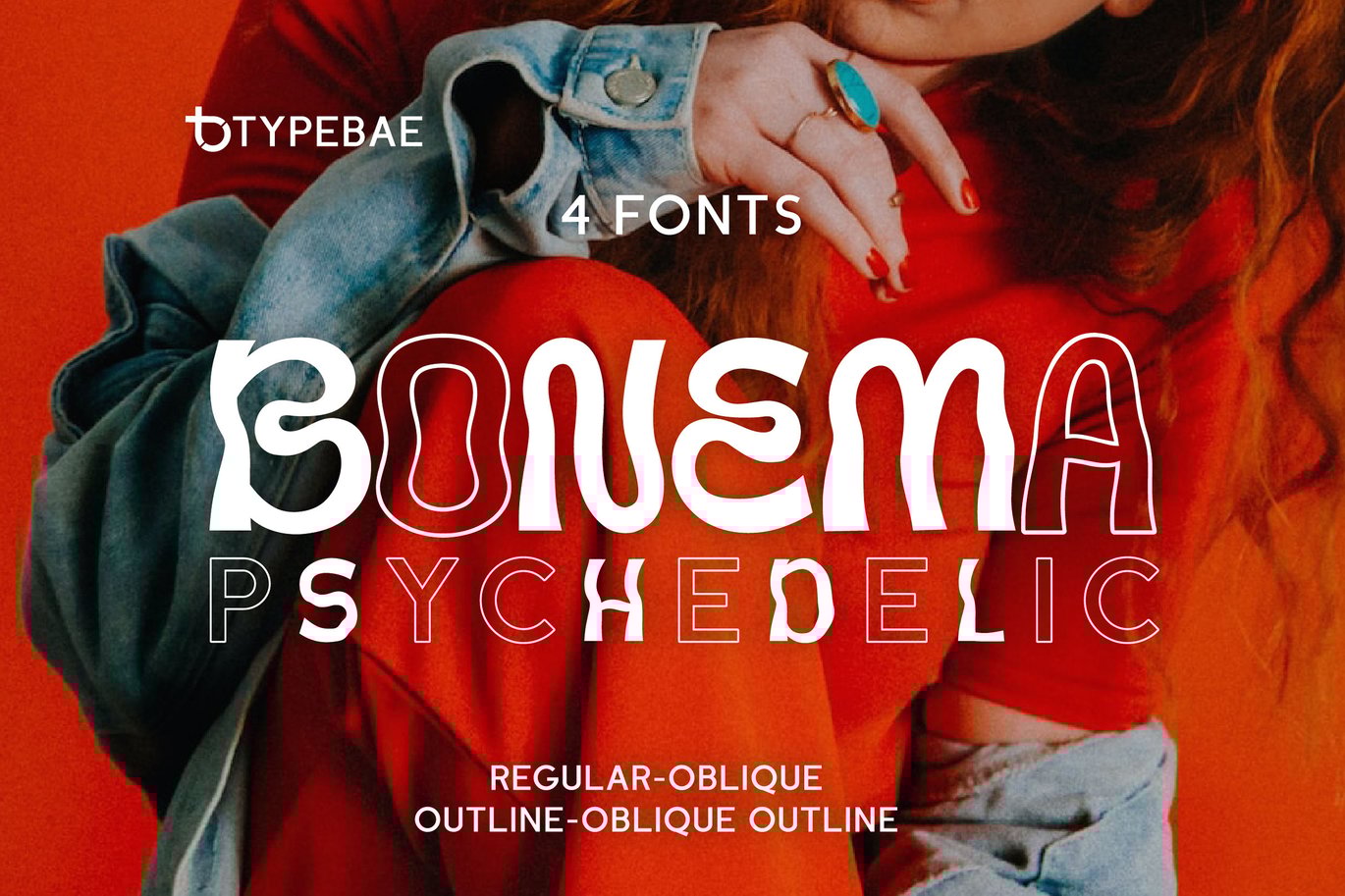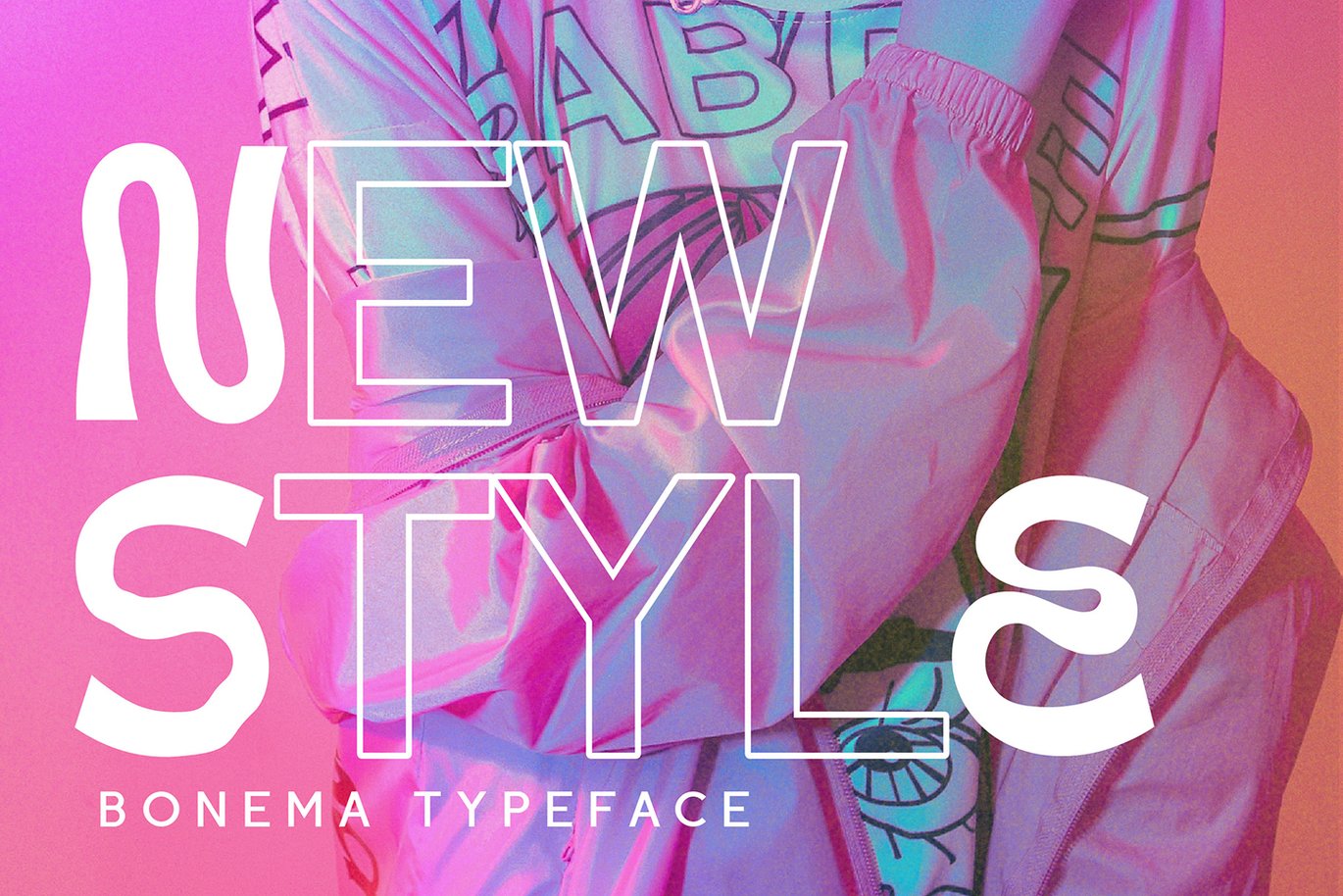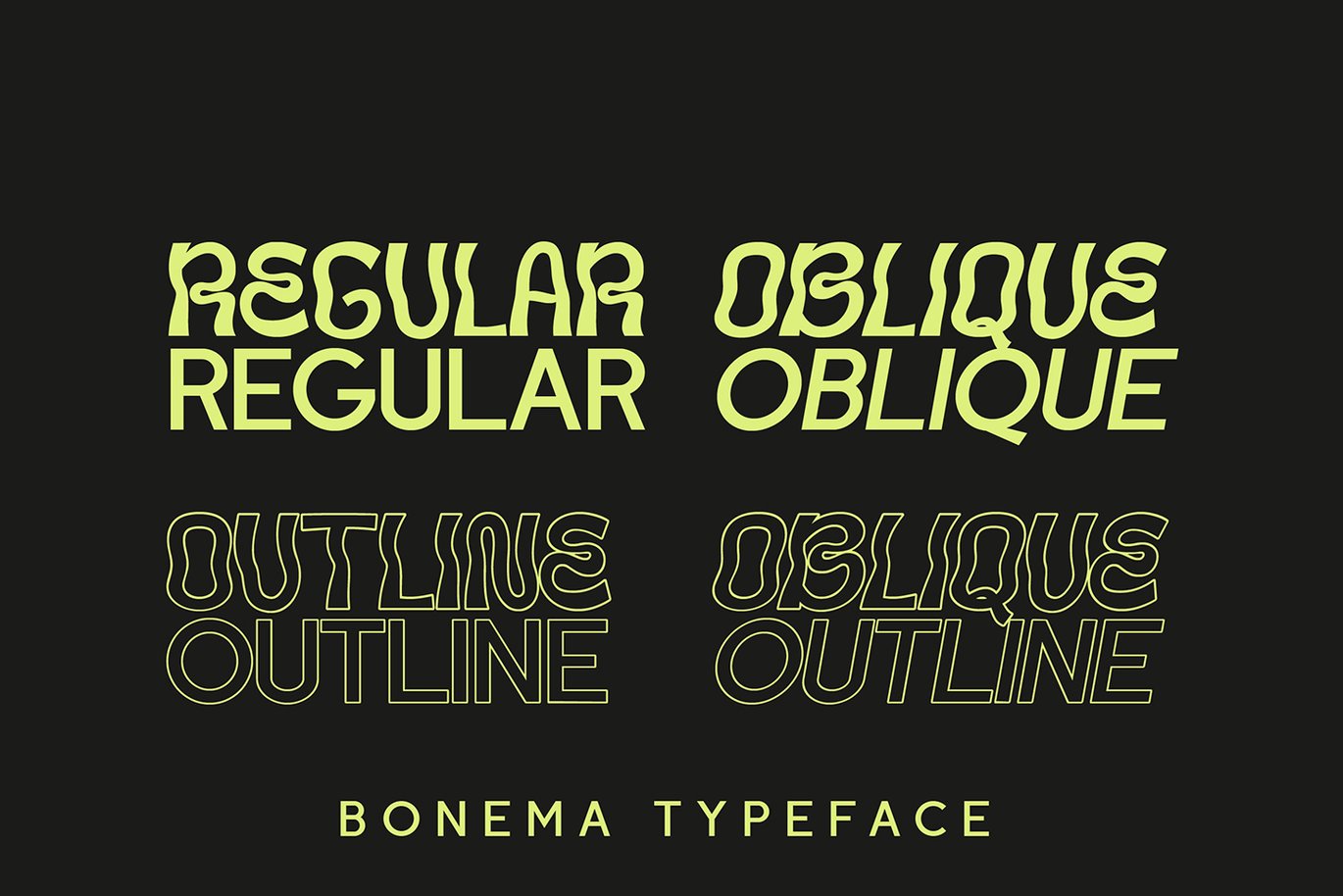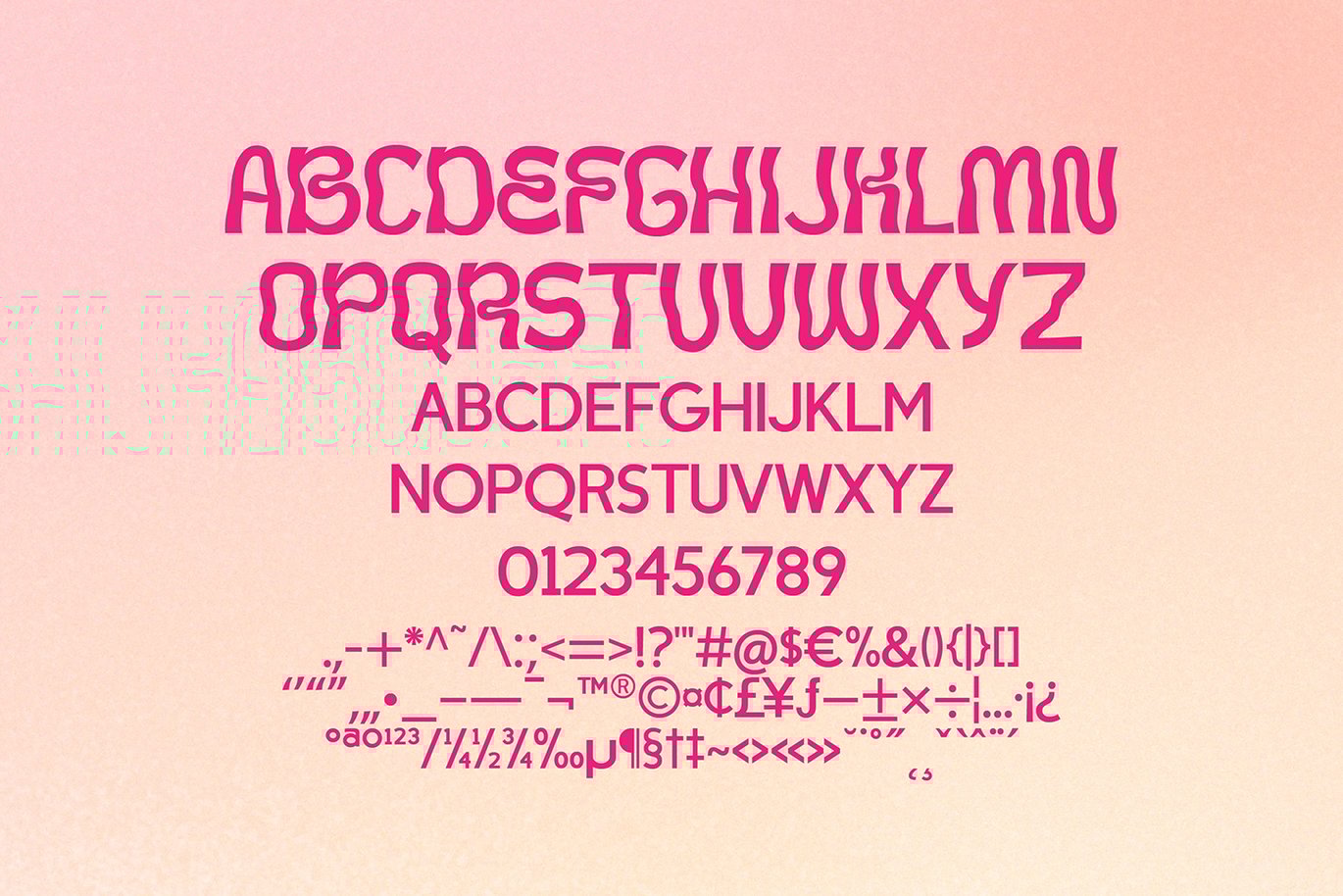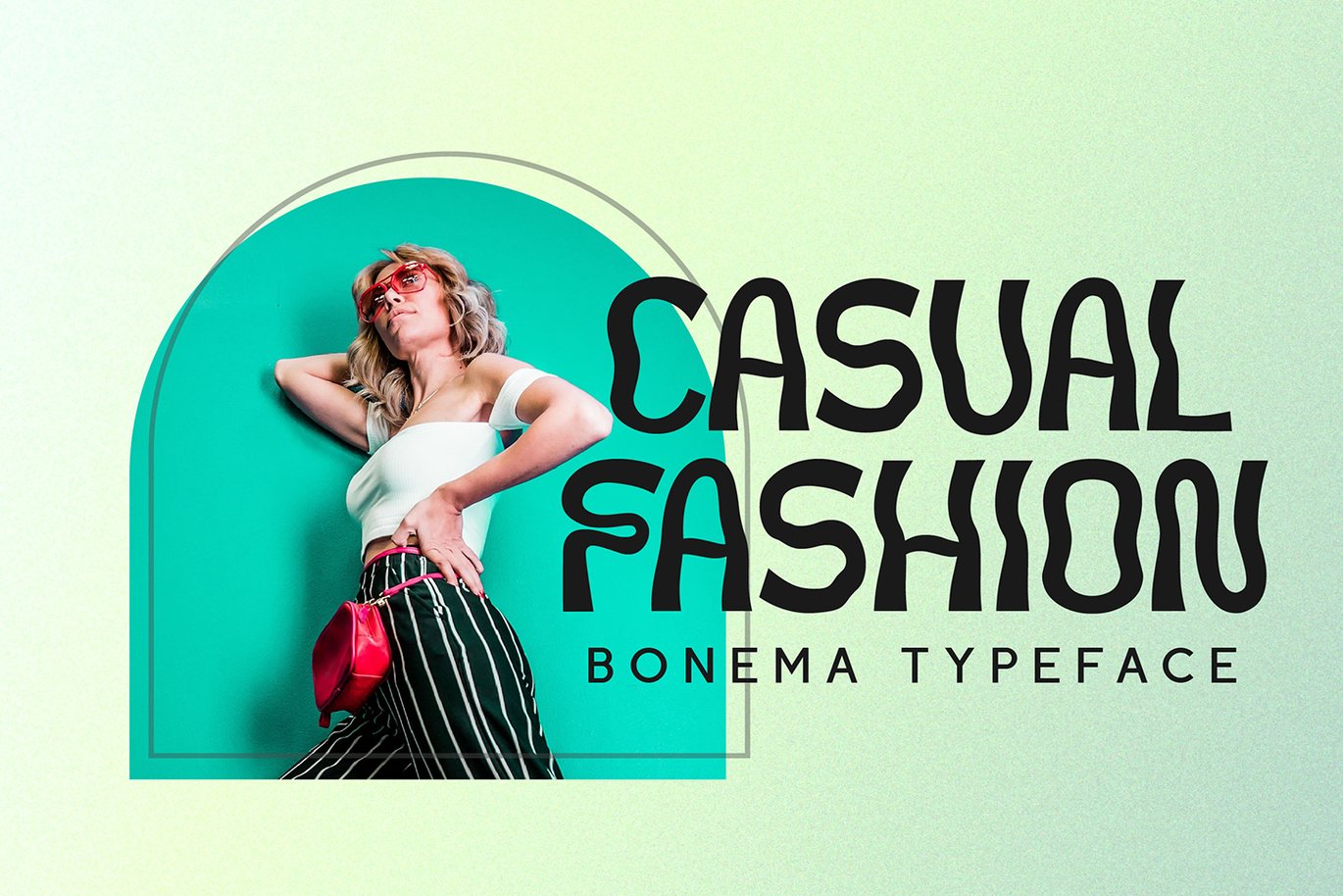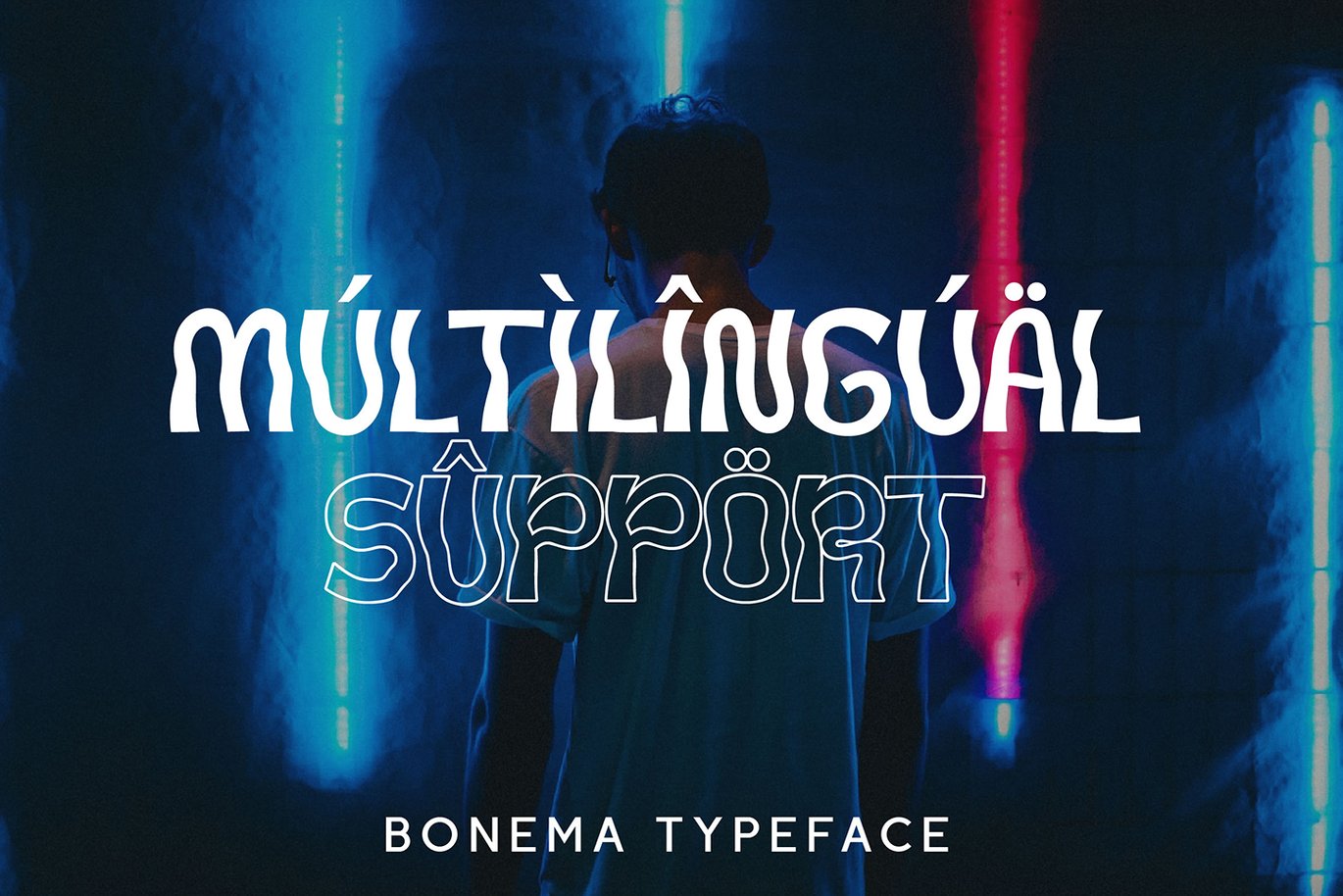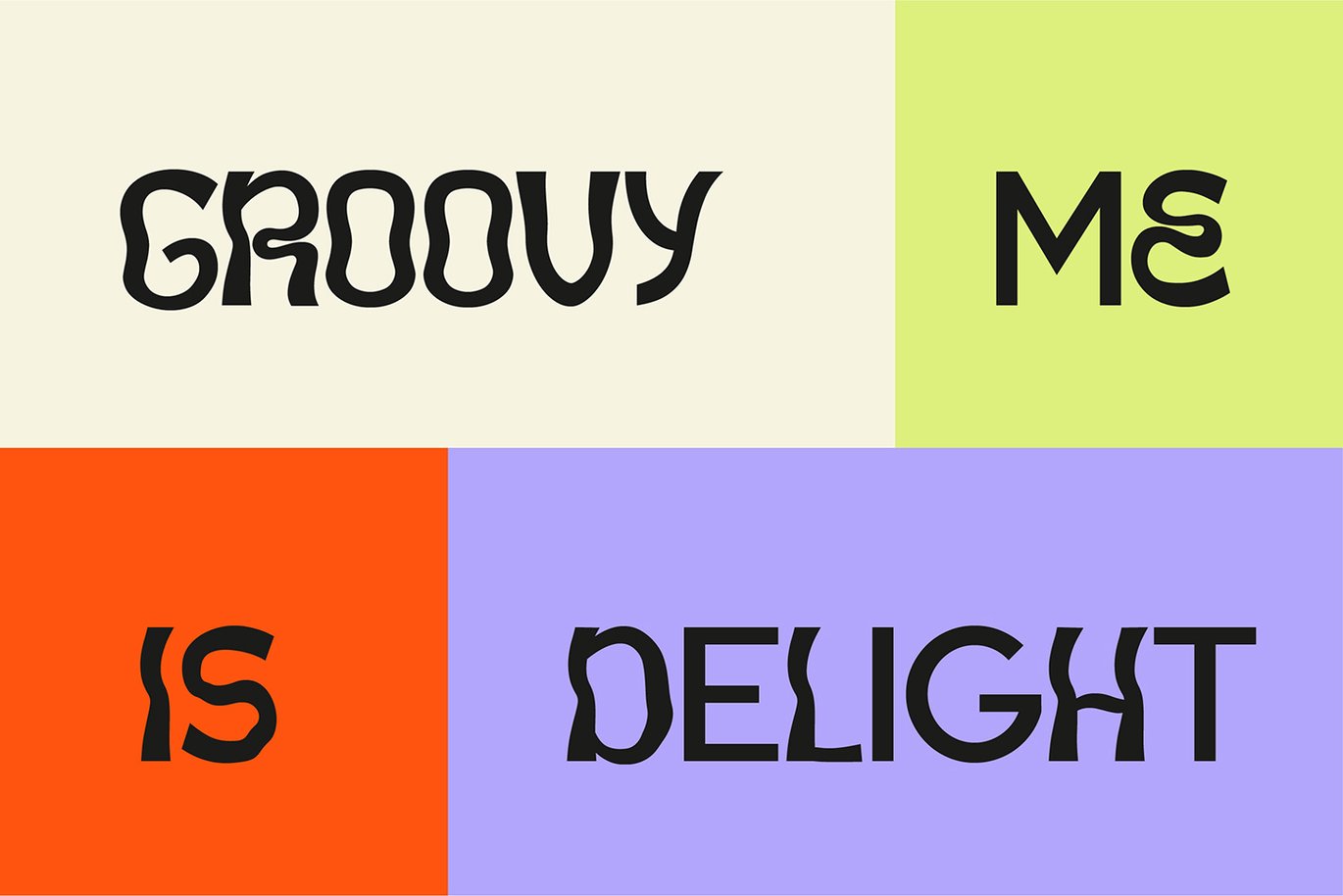
Bonema Psychedelic Font
Bonema is a retro-style font that encapsulates the spirit of the psychedelic era. The letters are decorated with elaborate, sparkling patterns that give off a surreal, free-spirited vibe. The fascinating and intriguing personality of the typeface will undoubtedly transport viewers to another time and place.
*Full Set of standard alphabet and punctuation
*Multilingual Support: Afrikaans, Basque, Breton, Catalan, Danish, Dutch, English, Finnish, French, Gaelic (Irish, Scots), German, Icelandic, Indonesian, Irish, Italian, Norwegian, Portuguese, Saami (Southern), Spanish, Swahili, Swedish.